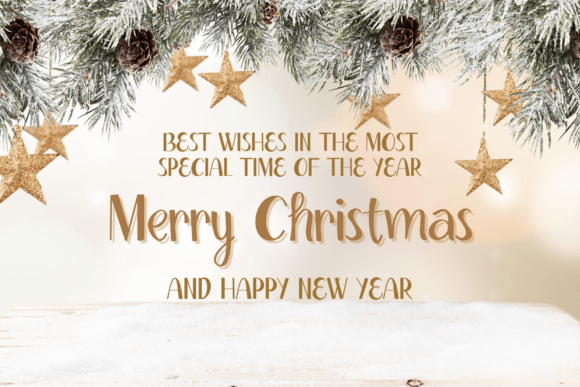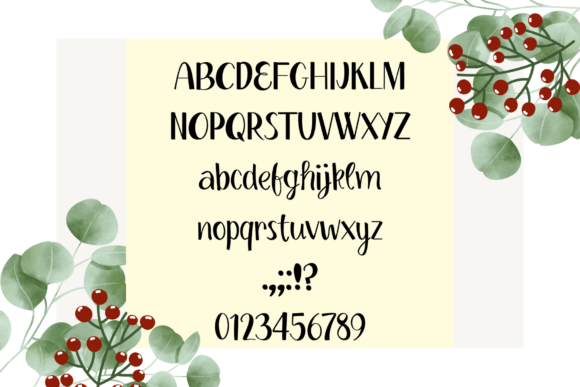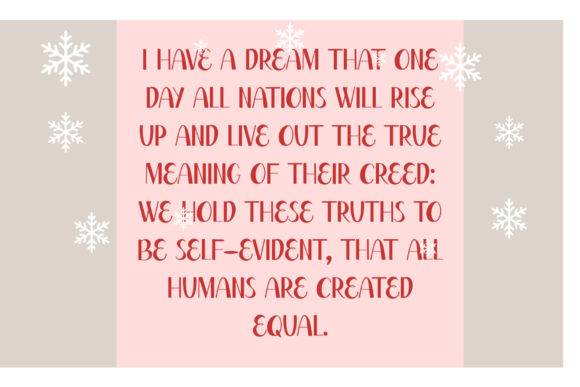
Happy New Years Font: Add a Fun Touch to Your Designs
Are you looking for a font that can add a sweet and friendly touch to your designs? Look no further than the Happy New Years font! This cute and fun handwritten display font is ideal for a variety of design projects, from crafts and digital design to presentations, wedding invitations, cards, and more.
What Makes Happy New Years Font So Special?
Happy New Years font is a unique and charming font that is sure to bring a smile to anyone’s face. Its handwritten style gives it a personal and approachable feel, making it perfect for designs that need a touch of warmth and personality. The font is also highly versatile, making it suitable for a wide range of design projects.
Ideal for Crafts and Digital Design
Whether you’re a crafter, digital designer, or artist, Happy New Years font is a great addition to your design toolkit. The font is perfect for creating handmade crafts, such as cards, gift tags, and scrapbook pages. It’s also ideal for digital design projects, such as social media graphics, blog posts, and website headers.
Perfect for Presentations and Wedding Invitations
Happy New Years font is also a great choice for presentations, wedding invitations, and other formal designs. The font’s friendly and approachable style helps to create a warm and inviting atmosphere, making it perfect for special occasions. Use it to create eye-catching titles, headings, and text elements that will make your designs stand out.
Fun and Creative Uses for Happy New Years Font
The possibilities are endless when it comes to using Happy New Years font. Here are a few ideas to get you started:
- Comic book style designs: Add a fun and playful touch to your comic book style designs with Happy New Years font.
- Game online: Use Happy New Years font to create eye-catching titles and text elements for your online games.
- Love shirts: Create custom love shirts with Happy New Years font for a unique and thoughtful gift.
- Posters: Use Happy New Years font to create eye-catching posters for events, promotions, or advertising campaigns.
- Movie titles: Add a touch of whimsy and fun to your movie titles with Happy New Years font.
Why Teachers and Students Love Happy New Years Font
Happy New Years font is also a great tool for teachers and students. The font’s friendly and approachable style makes it perfect for educational materials, such as worksheets, handouts, and presentations. Use it to create engaging and interactive learning materials that will capture your students’ attention.
Tips for Using Happy New Years Font
Here are a few tips for using Happy New Years font:
- Use it sparingly: Happy New Years font is a display font, so use it sparingly to add emphasis and interest to your designs.
- Pair it with other fonts: Experiment with pairing Happy New Years font with other fonts to create a unique and interesting look.
- Adjust the size and color: Adjust the size and color of Happy New Years font to suit your design needs.
In conclusion, Happy New Years font is a sweet and friendly handwritten display font that is perfect for adding a fun touch to your designs. Its versatility and charm make it suitable for a wide range of design projects, from crafts and digital design to presentations, wedding invitations, and more. Whether you’re a designer, crafter, teacher, or student, Happy New Years font is a great addition to your design toolkit.